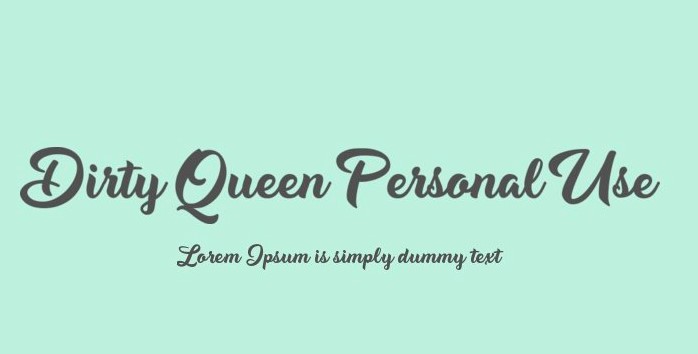
Hello, today we are introducing the trendy and striking textures scripted typeface known as Dirty Queen Font. This font family is well-known and widely used in creating posters and banners.
There are lots of ways to use this font, you can use in your way in the projects and make your projects more interesting and interactive with the users. The best way to use this font is to use with the pairing of allstar font for elegant features.